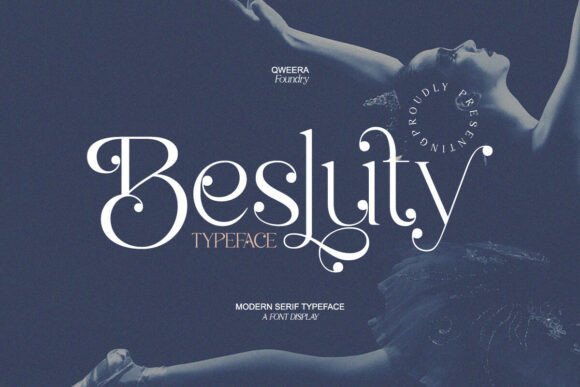
The Perfect Font for Making a Statement
Have you ever stared at a blank page, trying to find the perfect font to elevate your design project? The struggle is real, but with the Besluty Font, you’ll be one step closer to creating a masterpiece. This high-contrast modern serif typeface is designed to make a lasting impression, with delicate ball terminals, extended strokes, and dramatic flourishes that add a touch of elegance to any composition.
Besluty Font is more than just a font – it’s a tool for creative professionals who value form, emotion, and stylistic flexibility. Whether you’re working on a luxury branding project, a fashion editorial, or a premium packaging design, Besluty Font is the perfect choice to bring your vision to life. With its high legibility and extended character set, you’ll be able to express yourself with confidence and precision.
- Unique Characteristics: Besluty Font features a unique blend of modern and traditional design elements, making it a standout choice for designers looking to add a touch of sophistication to their work.
Besluty Font Review
Overall, I think the Besluty font has some unique qualities that make it stand out, ✨ but it’s not without its limitations. Here are my thoughts.
- ✨ Unconventional design: Besluty has a distinct, hand-drawn feel that sets it apart from more traditional fonts.
- ✨ Versatile: It can be used for a wide range of applications, from headings to body text, and even for decorative purposes.
- ✨ Great for creative projects: The Besluty font is perfect for designers and artists who want to add a touch of personality to their work.
- ⚠️ Readability: While the Besluty font is aesthetically pleasing, it can be challenging to read, especially at smaller font sizes.
- ⚠️ Limited legibility: The font’s unique design can make it difficult to distinguish between certain letters, which may lead to errors in typesetting.
- ⚠️ Not suitable for large blocks of text: Due to its unconventional design, Besluty is best used in small doses, such as for headings or titles.
The Besluty font is a great choice for designers who want to add some personality to their work, but it’s essential to use it judiciously. While it excels in small doses, it may not be the best option for large blocks of text or applications where readability is crucial.
Besluty Font is commonly used for:
- Creating elegant and sophisticated designs.
- Adding a touch of luxury to branding and marketing materials.
- Creating custom typography and lettering designs.